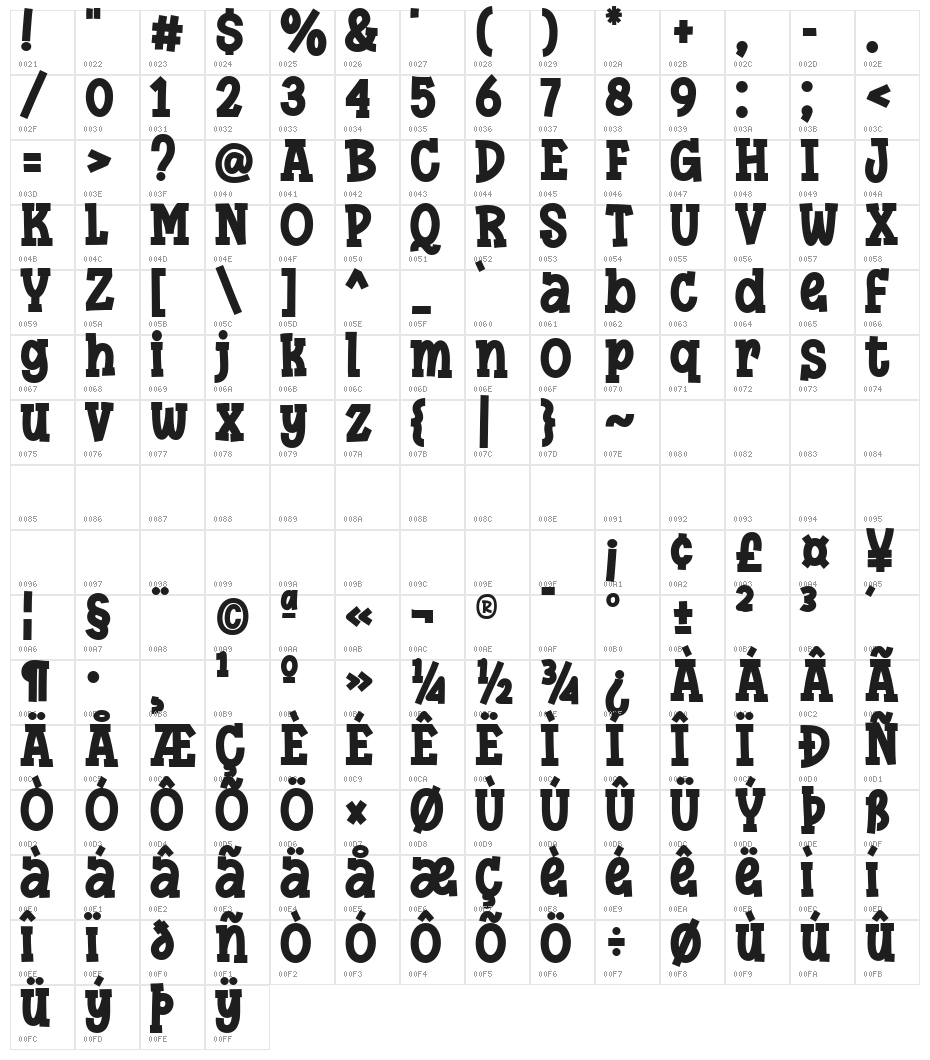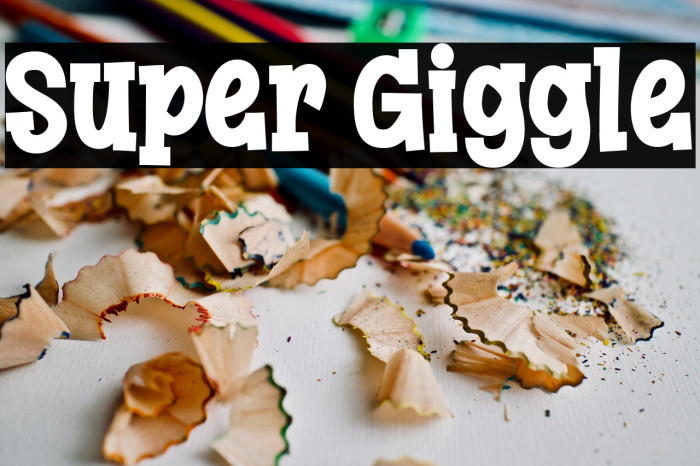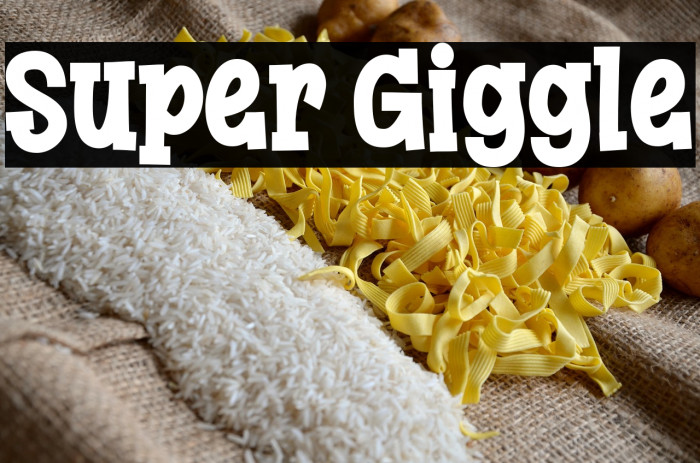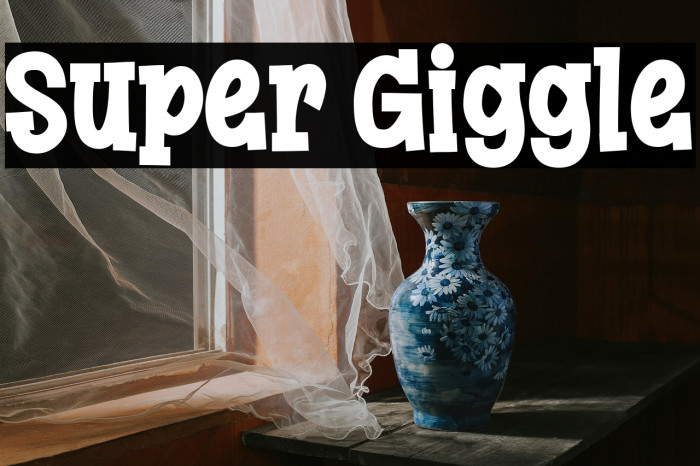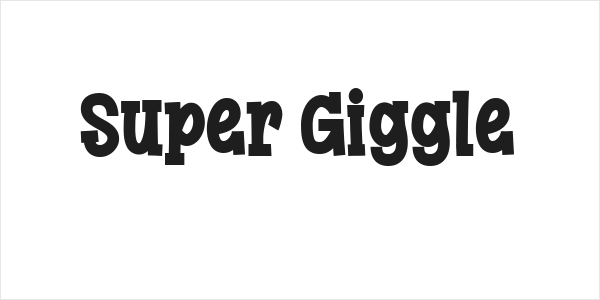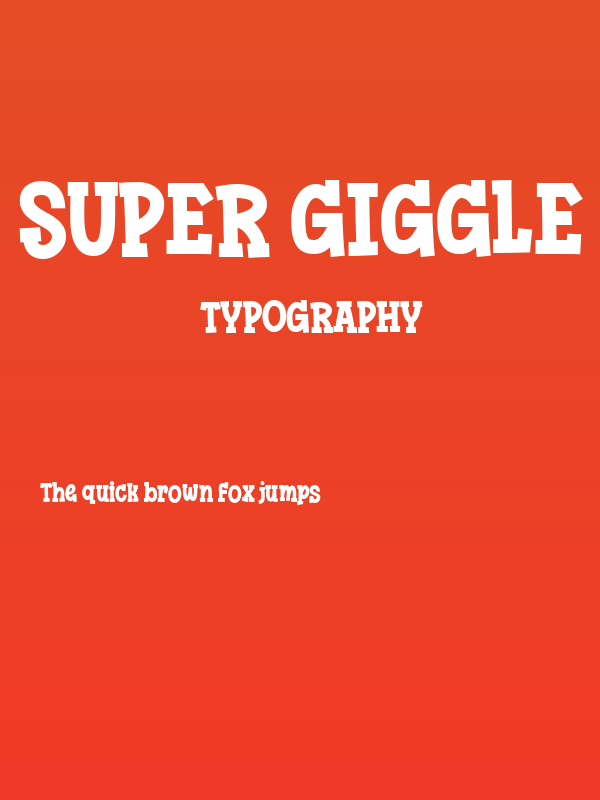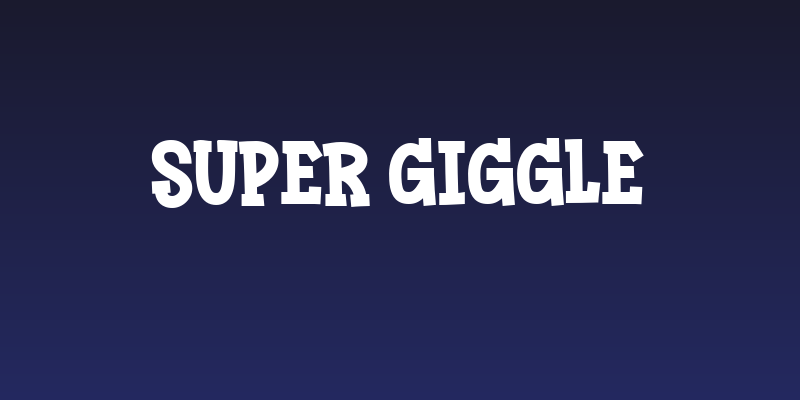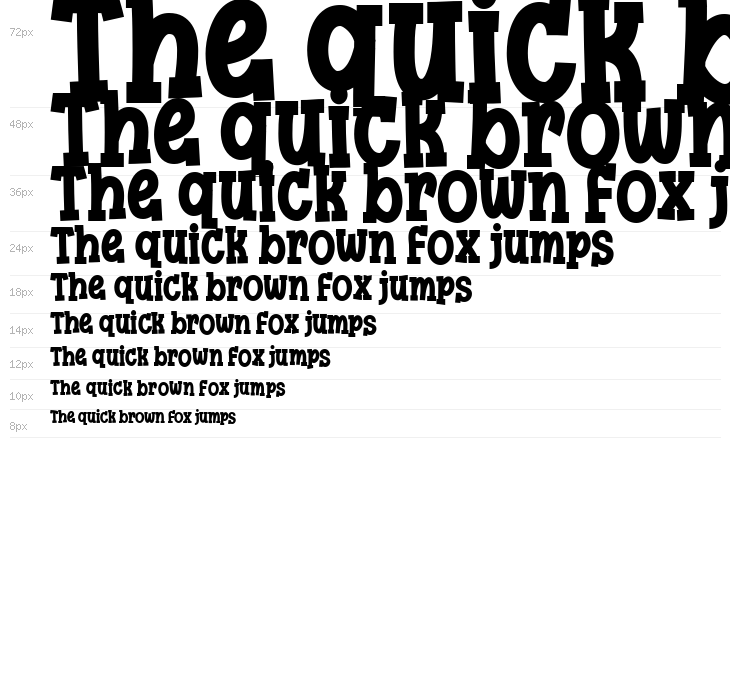
Super Giggle Font
Super Giggle Description
This playful and bold typeface features a whimsical, cartoon-like style with exaggerated curves and thick strokes. The uppercase letters are robust and slightly condensed, giving a sense of fun and energy. Lowercase letters maintain the same playful aesthetic, with rounded edges and a consistent stroke width. Numbers and special characters follow the same design principles, ensuring a cohesive look across all glyphs. The font's boldness and unique character make it ideal for projects that require a lively and engaging visual impact.
| Overall Style | Playful, Cartoon-like, Whimsical |
| Proposed Projects | Ideal for children's books, comic strips, playful branding, and eye-catching posters. |